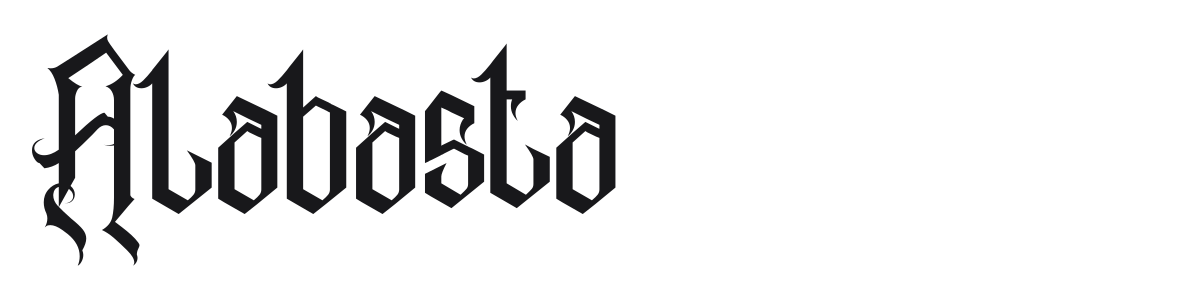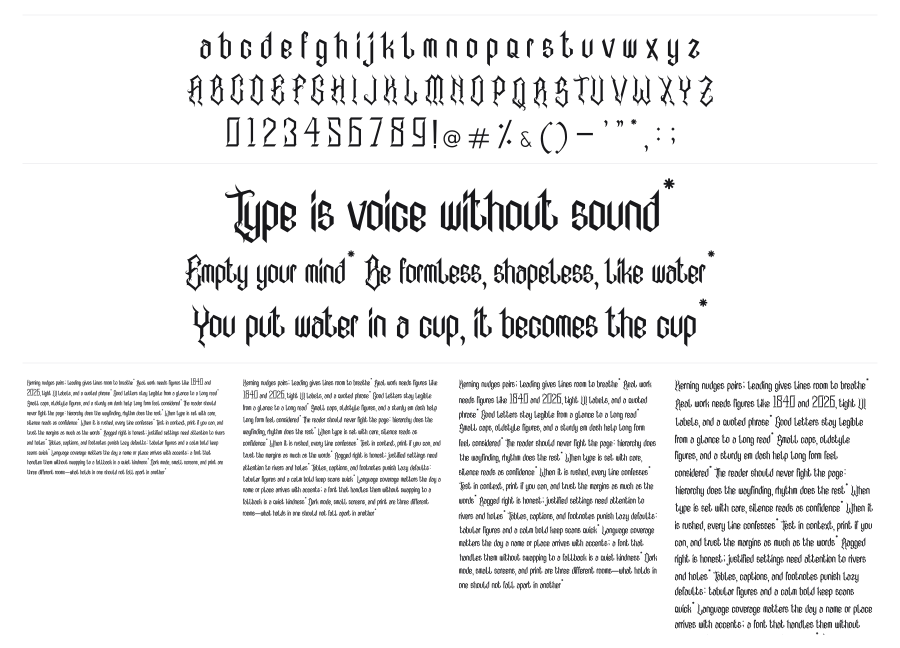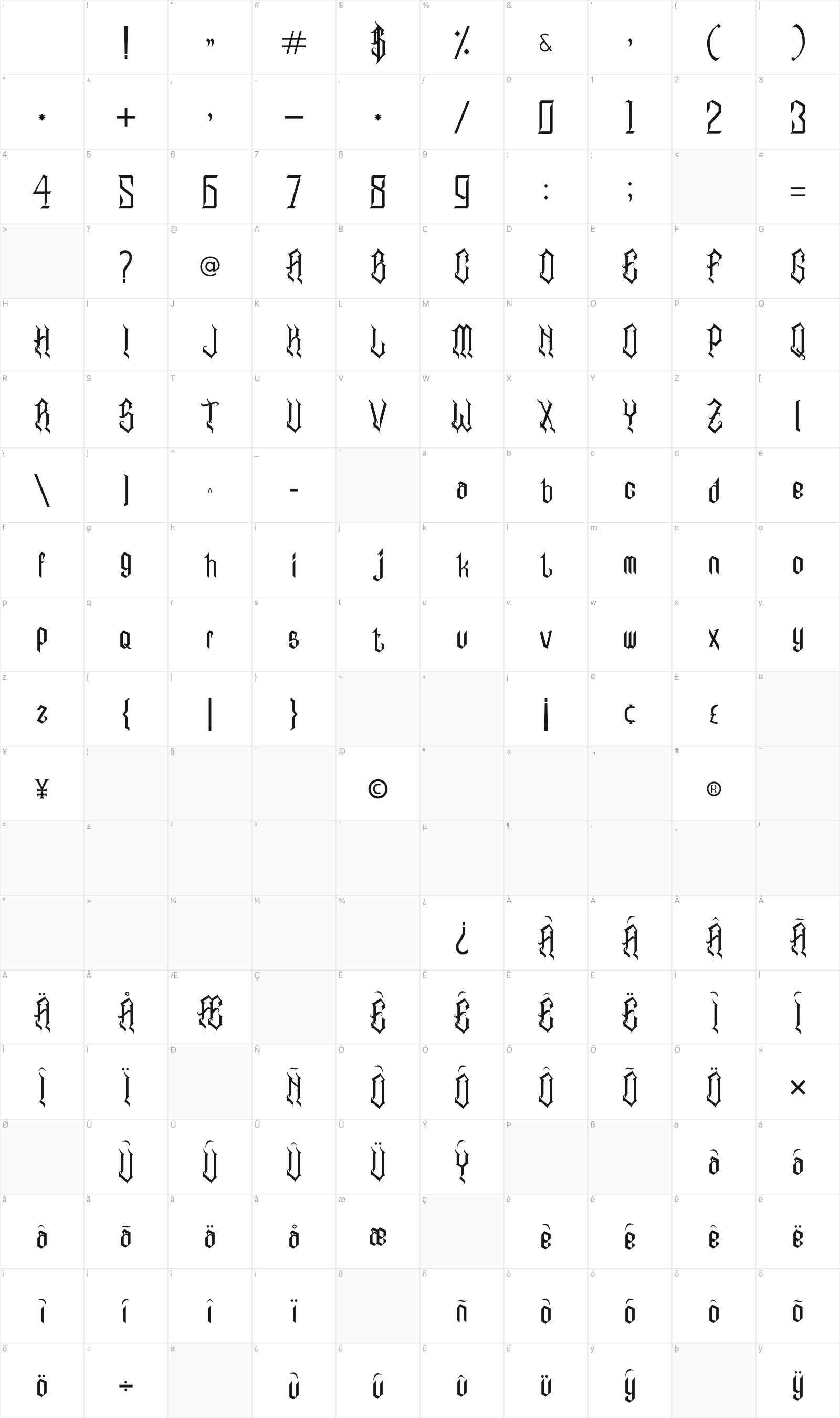
Alabasta
Alabasta is a bold Gothic blackletter with sharp angular cuts and heavy stroke contrast that modernize the medieval form. The pointed terminals and diagonal notches give it an aggressive, contemporary edge suited to music branding, apparel, and dark editorial work. It carries the weight of tradition while reading as distinctly current.